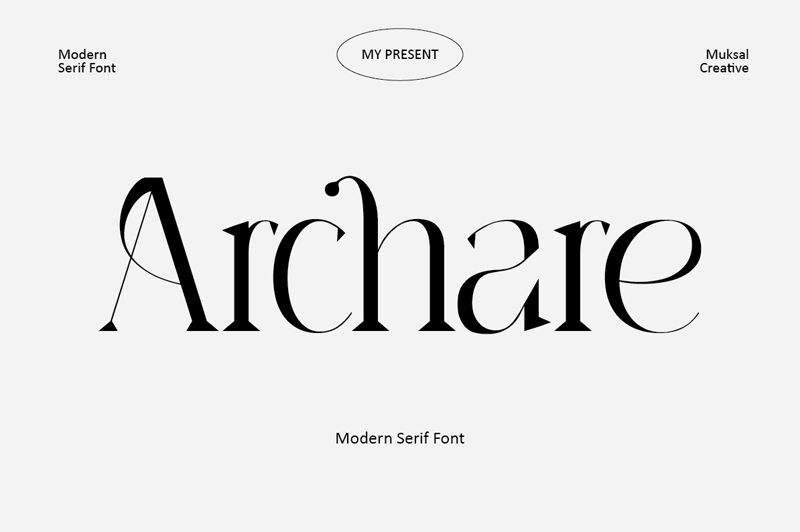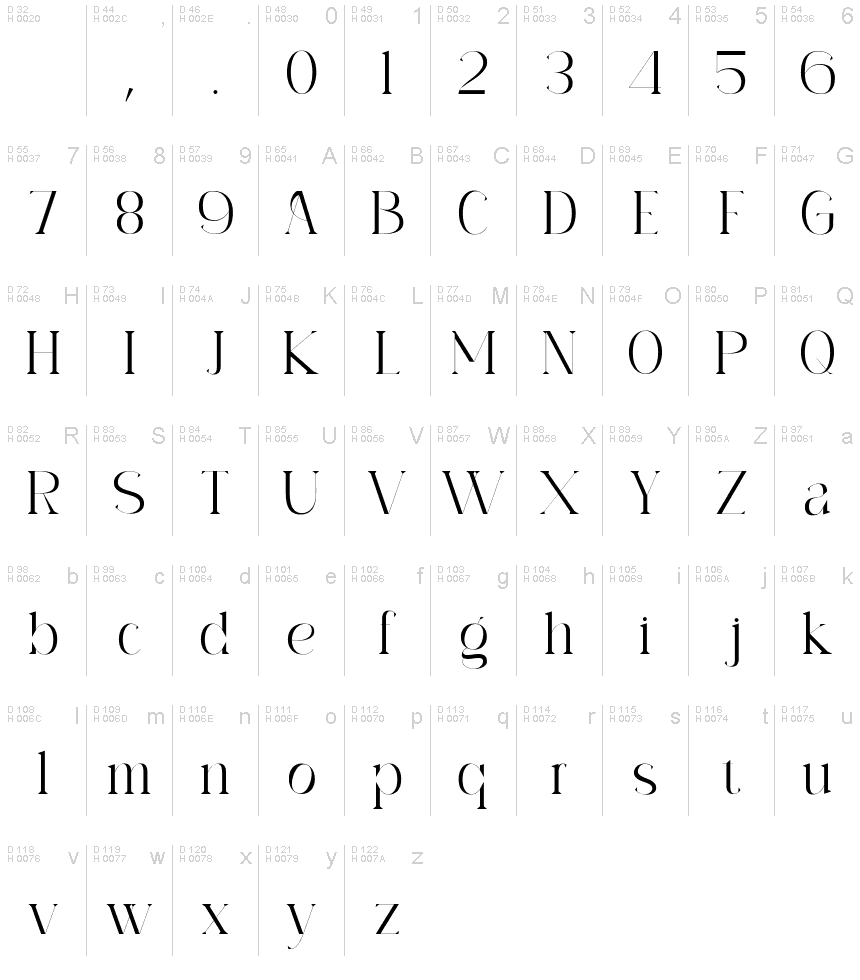
Archare Regular
Archare, a creation by Muksal Creative, is a modern serif font that effortlessly combines elegance and simplicity. With its semi-light weight, this font is perfect for projects that require a touch of sophistication.
Its clean lines and graceful curves make it an ideal choice for luxury brand logos, high-end fashion magazines, or upscale restaurant menus. Archare's versatility also lends itself well to professional business presentations or formal invitations.
Whether you need to convey professionalism or refine your design aesthetic, Archare is the go-to font for adding a touch of modern elegance to any project.